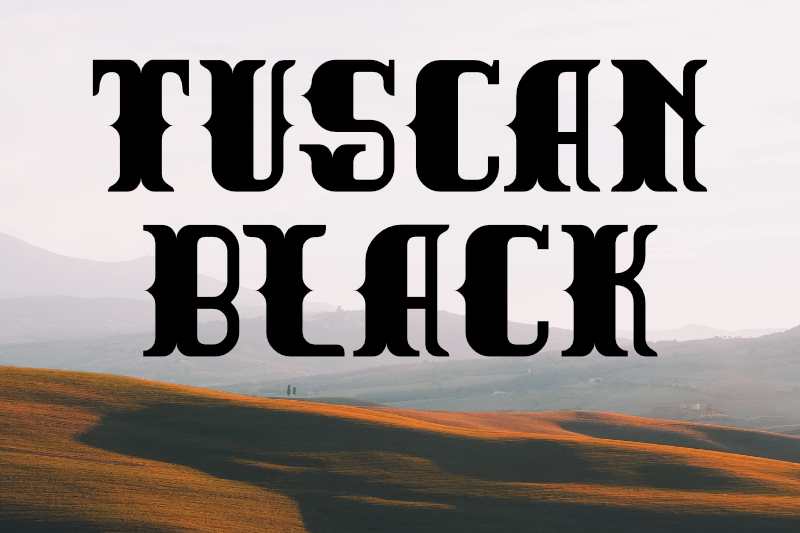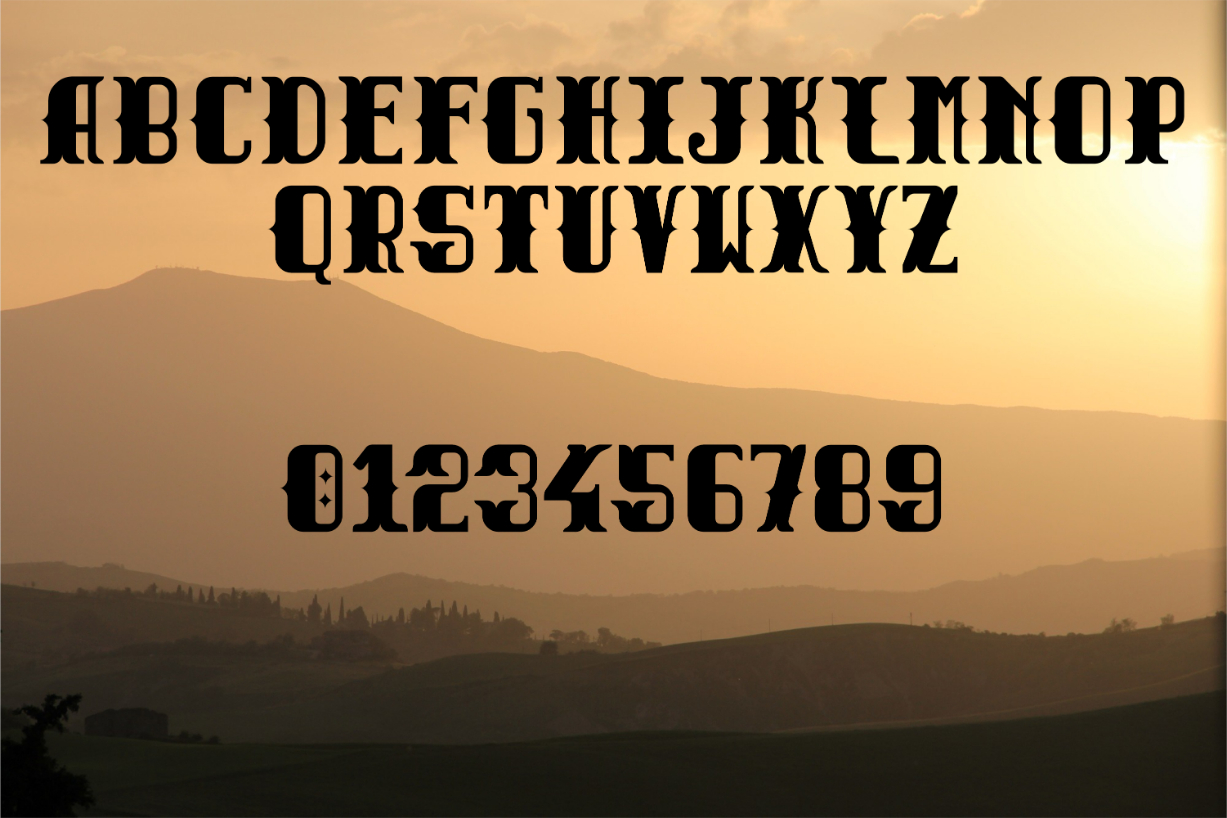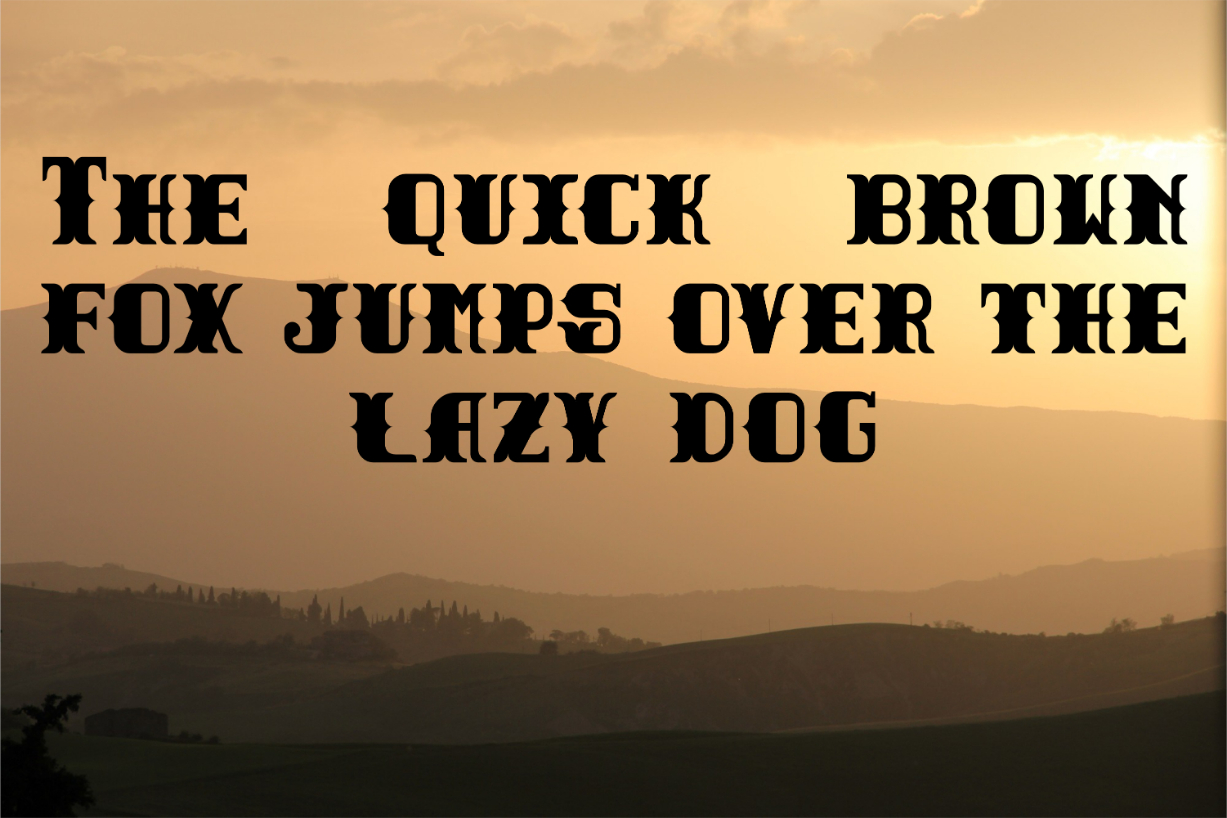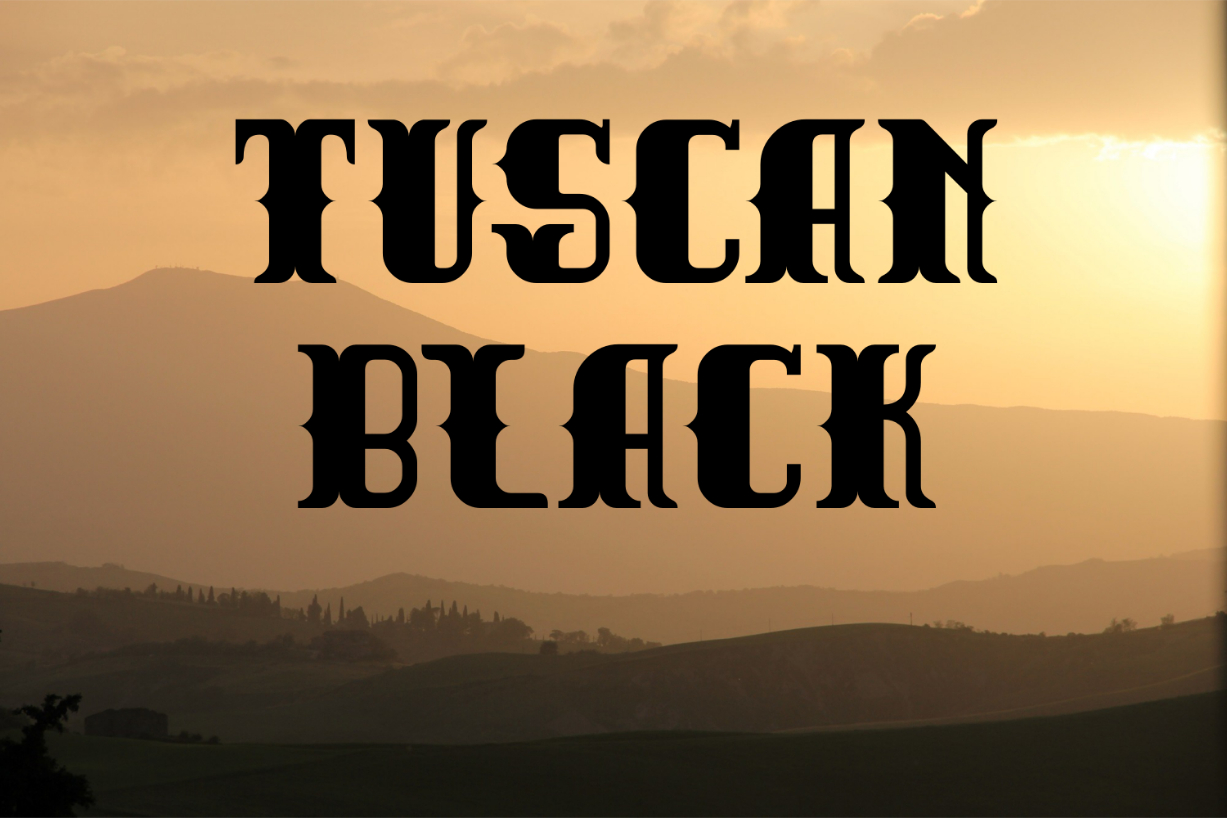
Tuscan Black Font
About Tuscan Black Font
Tuscan Black is a heavy and bold blackletter font. Add it to your creative ideas, and notice how they instantly stand out.